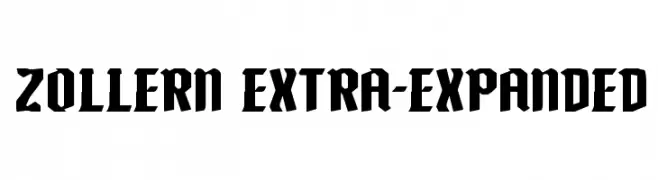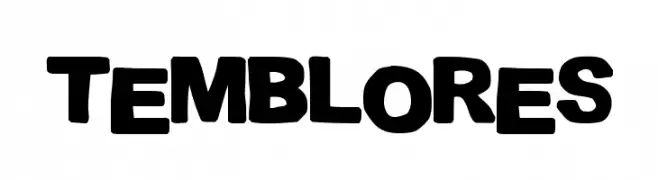
A bold, dynamic handwritten font with a modern and energetic style.
A decorative font with a 3D shadow effect and angular, mystical design.
A bold, angular font with a Gothic influence and strong geometric shapes.
A bold, italicized font with a gradient effect and dynamic, futuristic style.
A bold, rounded font with a playful and casual style.
A bold, dynamic script font with a sense of motion and elegance.
A bold, distressed font with a rugged, textured appearance.
A festive, snow-capped decorative font with bold, blackletter-inspired characters.